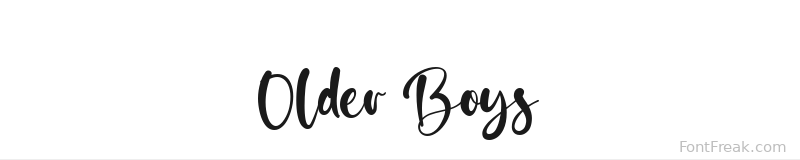
Older Boys
Introducing the Older Boys font by Kong Font, a modern script typeface that effortlessly blends elegance with a playful touch. Released in 2021, this font showcases a fluid, handwritten style that captures the essence of casual sophistication, making it a versatile choice for various design projects. The strokes exhibit a medium weight and gentle contrast, allowing for easy readability while maintaining a stylish appearance. With its slightly irregular baseline and natural flow, Older Boys brings a personal and warm feel to any text.
This font is particularly well-suited for wedding invitations, where its charm can set a romantic tone. It also shines in branding materials for small businesses, such as coffee shops or boutiques, adding a friendly and approachable character. Additionally, the Older Boys font is ideal for social media graphics, making it a favorite among content creators looking to enhance their visual storytelling. Movie posters and promotional materials can also benefit from the unique flair this typeface offers, ensuring that key messages stand out with a touch of creativity.
Targeting graphic designers and small business owners alike, Older Boys appeals to those who seek a distinct yet accessible typeface that resonates with contemporary trends. Its versatility makes it a valuable asset for anyone looking to elevate their design work with a font that embodies both style and personality.